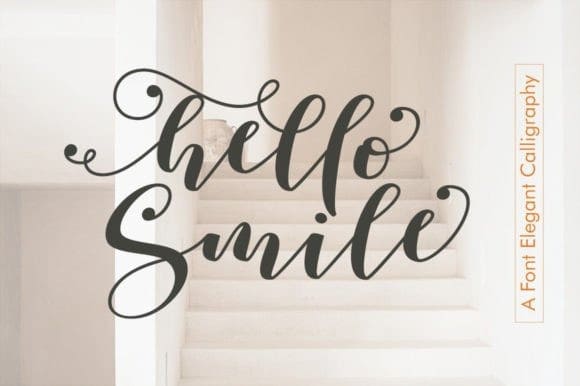
Hello Smile Font
Hello Smile Font – original handwritten simple font model now! With an updated hand calligraphy model with special glyphs that have been given a combination of fantasy and handwritten ink. This font will look beautiful on any design, Wedding designs, branding materials, blog titles, quotes and invitations, and business cards.